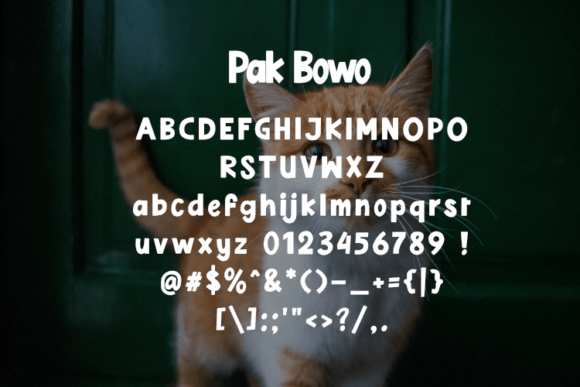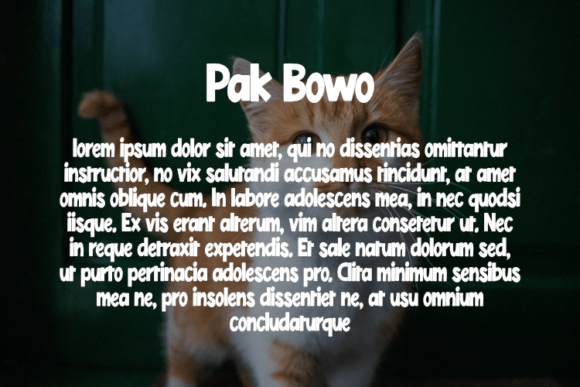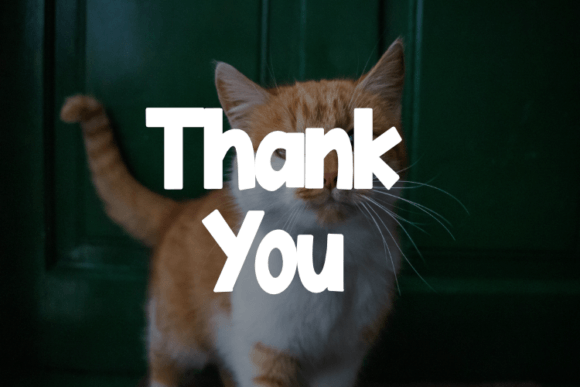
Introduction to Pak Bowo Font
Meet Pak Bowo, the versatile font tailored for the fashion-forward designers out there.
This flexible character set is a perfect fit for creating captivating designs on clothing, t-shirts and a panoply of other products Pak Bowo, compatible with every design platform, comes in both otf and ttf file formats, broadening its universal usability.
Key Features of Pak Bowo Font
Why Choose Pak Bowo Font?
Pak Bowo Font offers exceptional quality and versatility, making it a valuable addition to your design toolkit. Whether you’re creating for personal projects or commercial use, Pak Bowo Font delivers professional results.